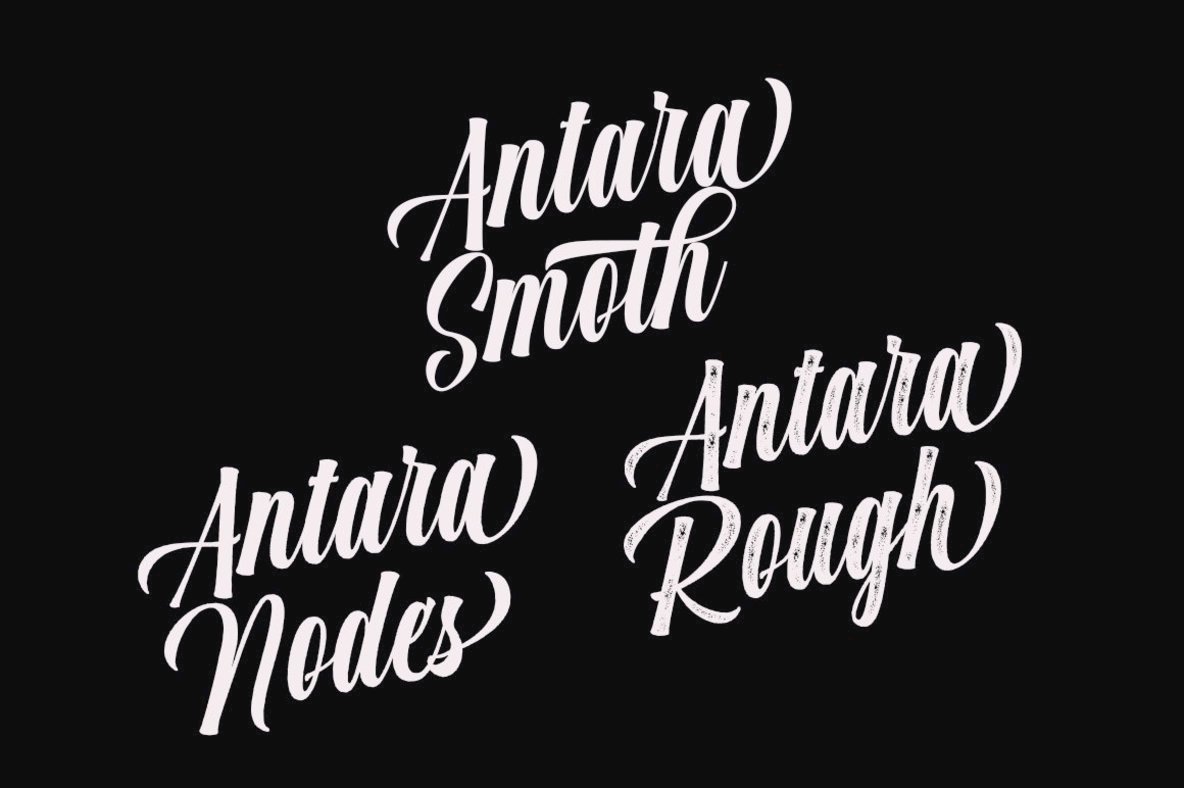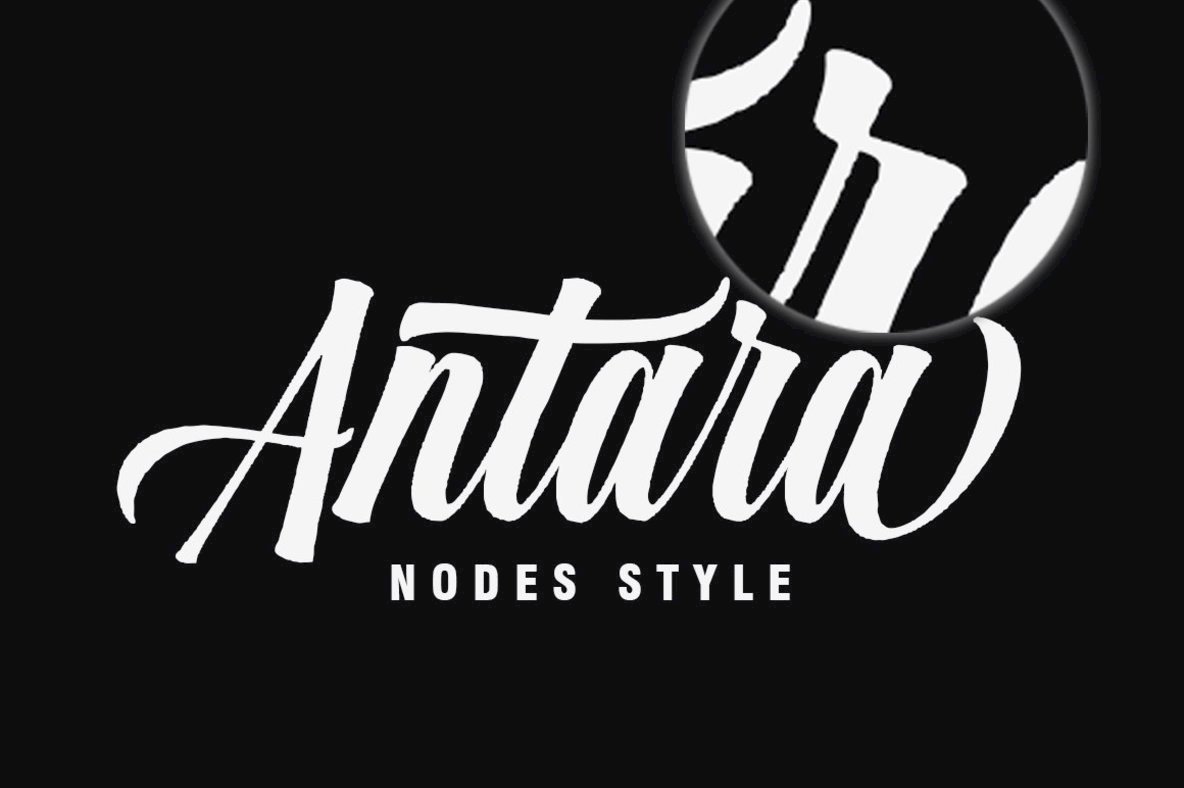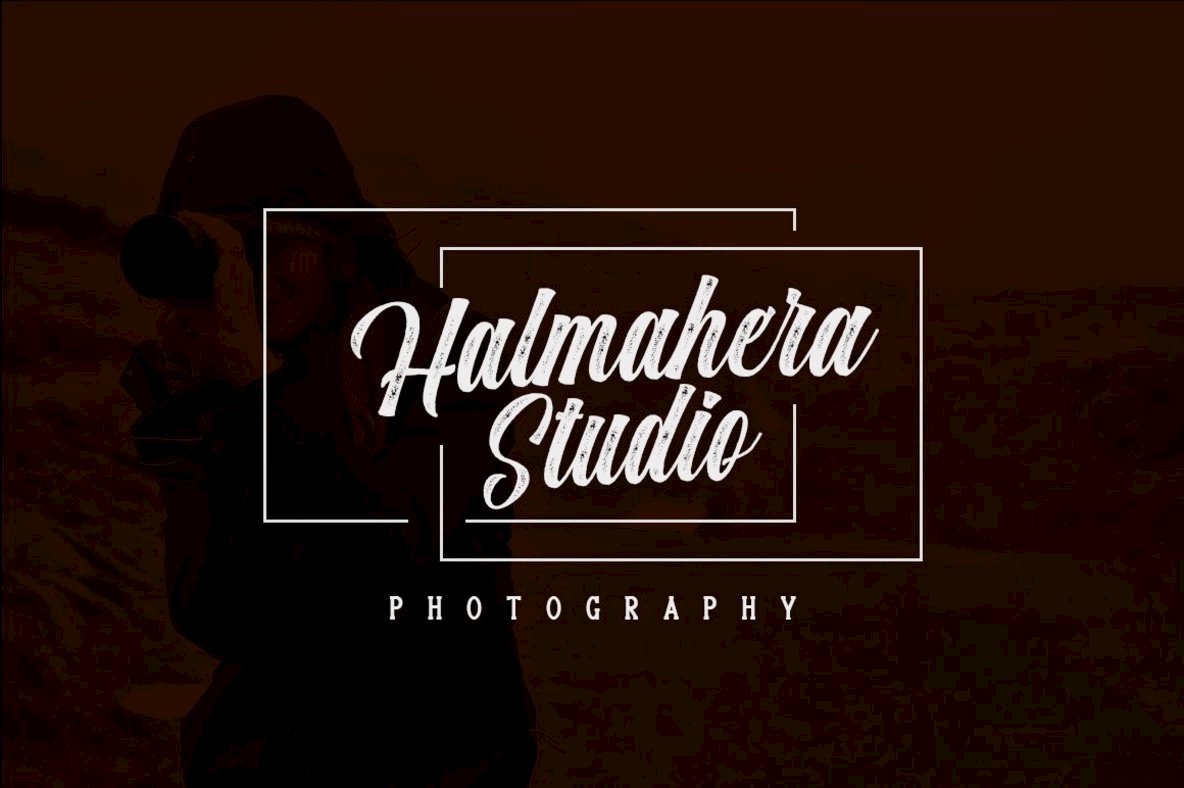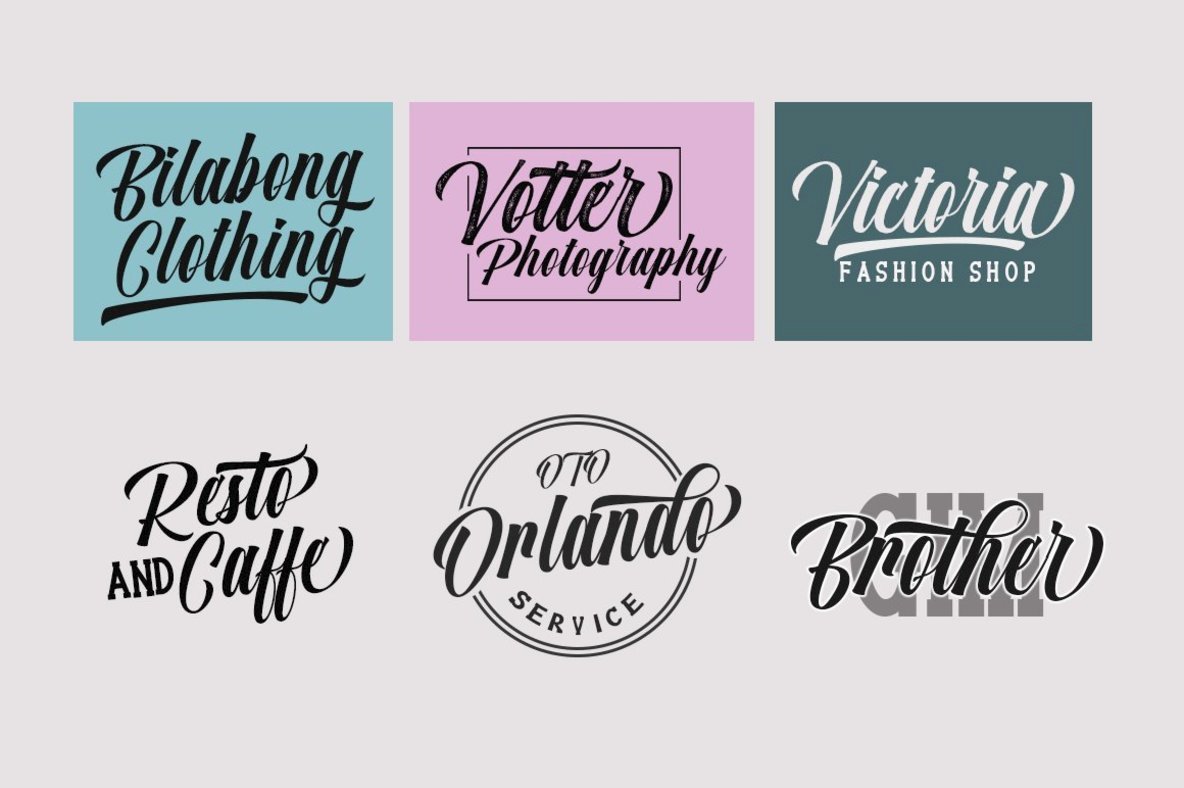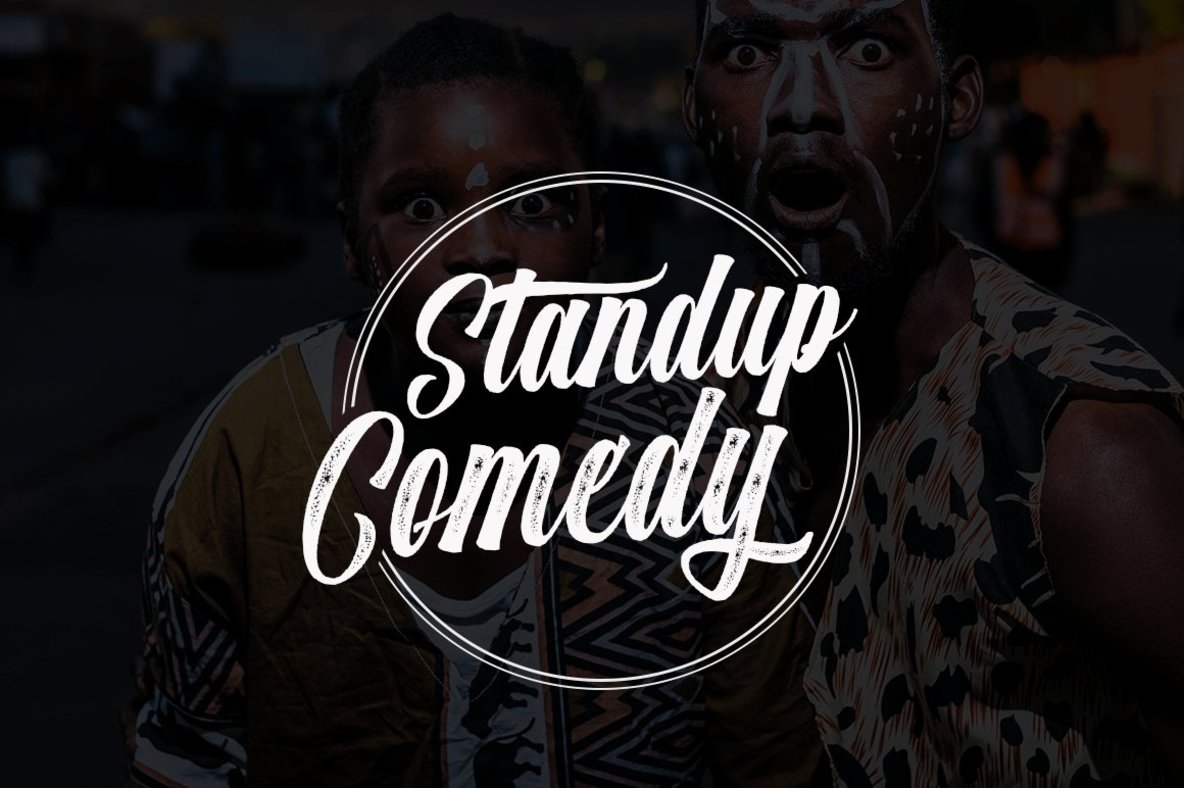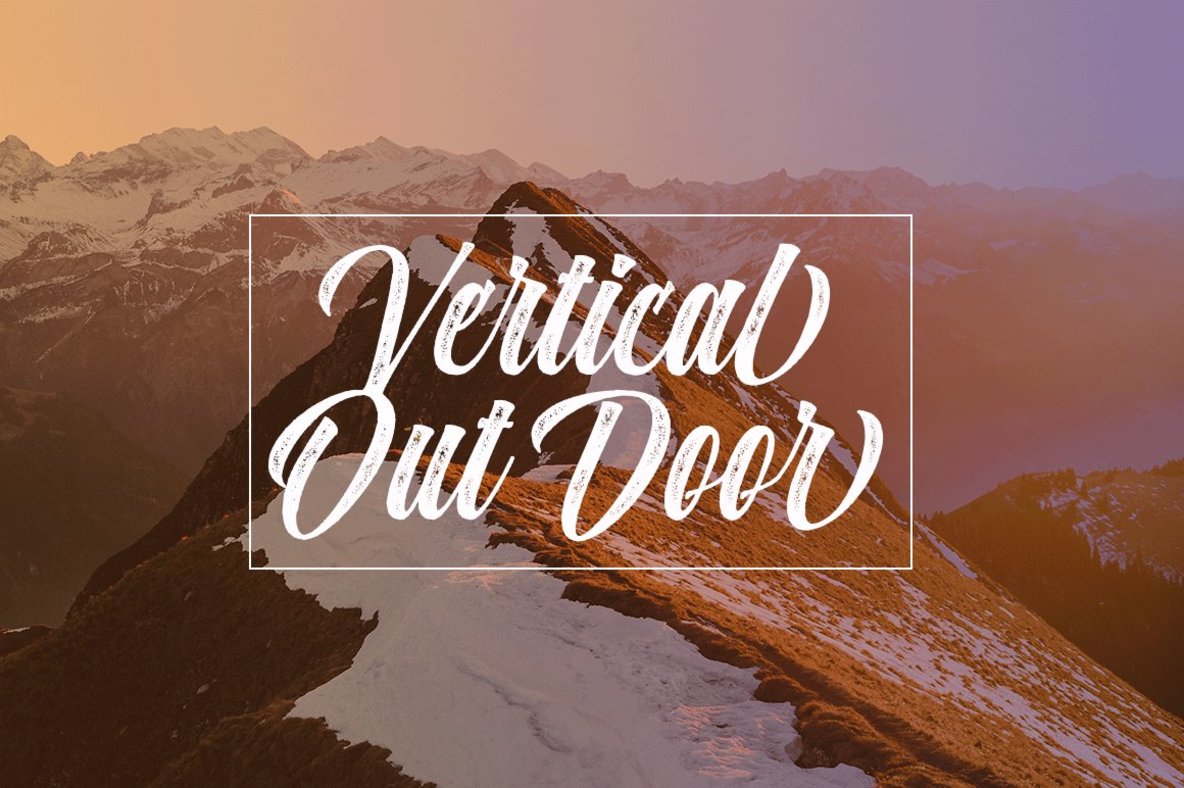
Antara Font
Antara, designed by Groen Studio, encapsulates the beauty and uniqueness of modern calligraphy in a versatile three-style font set. With a nod to traditional calligraphy writing, this brush script font brings a fresh, contemporary touch to any design project.Antara: A Modern Calligraphy Typeface